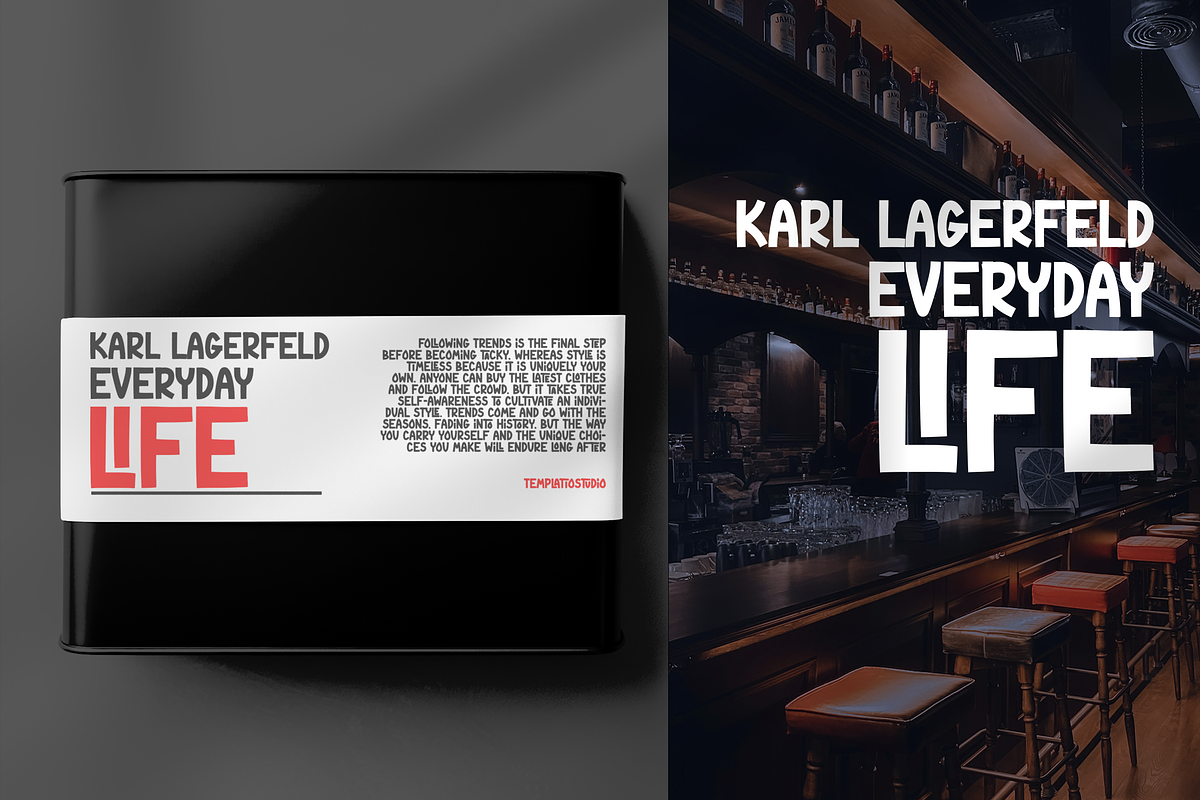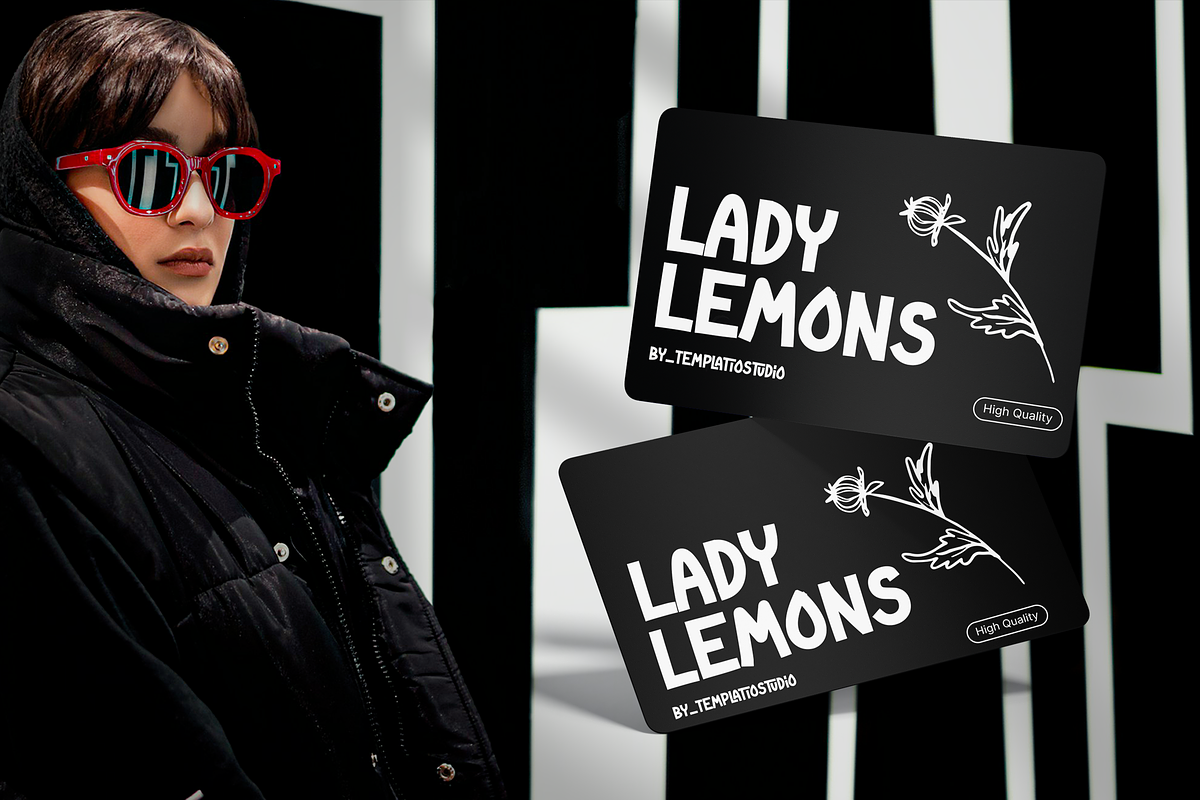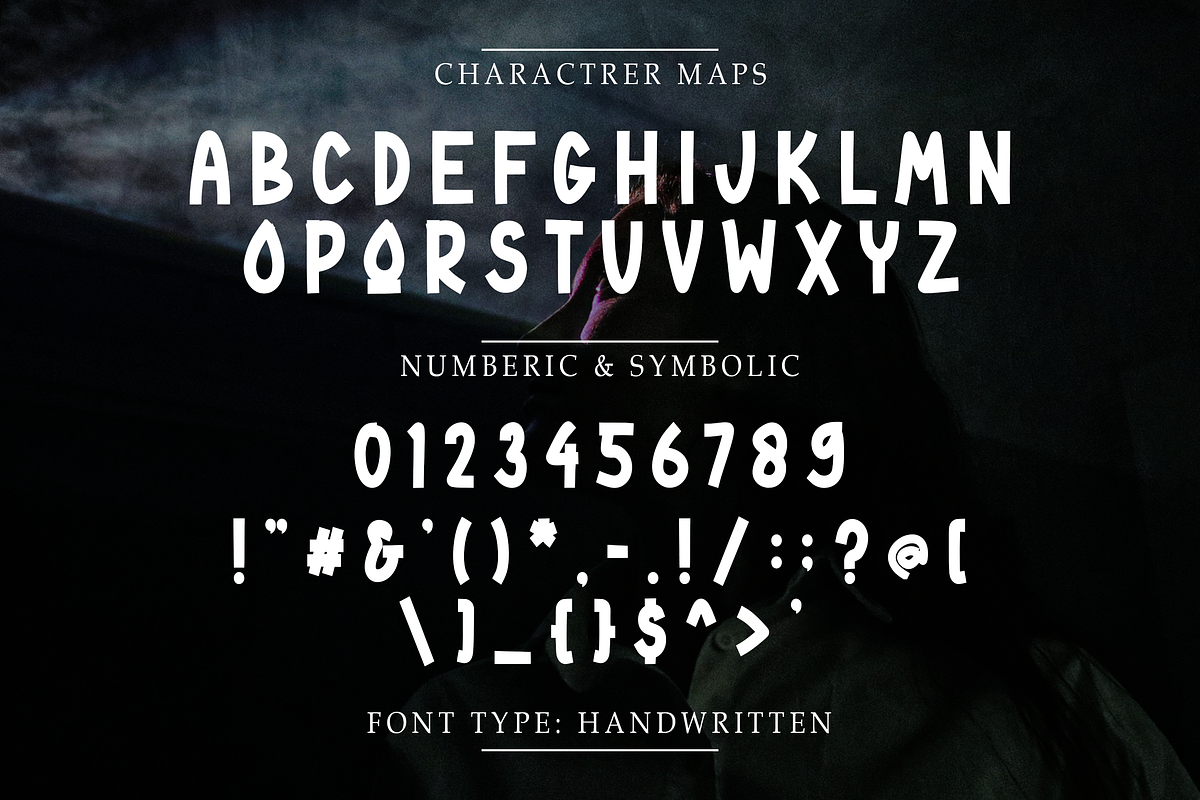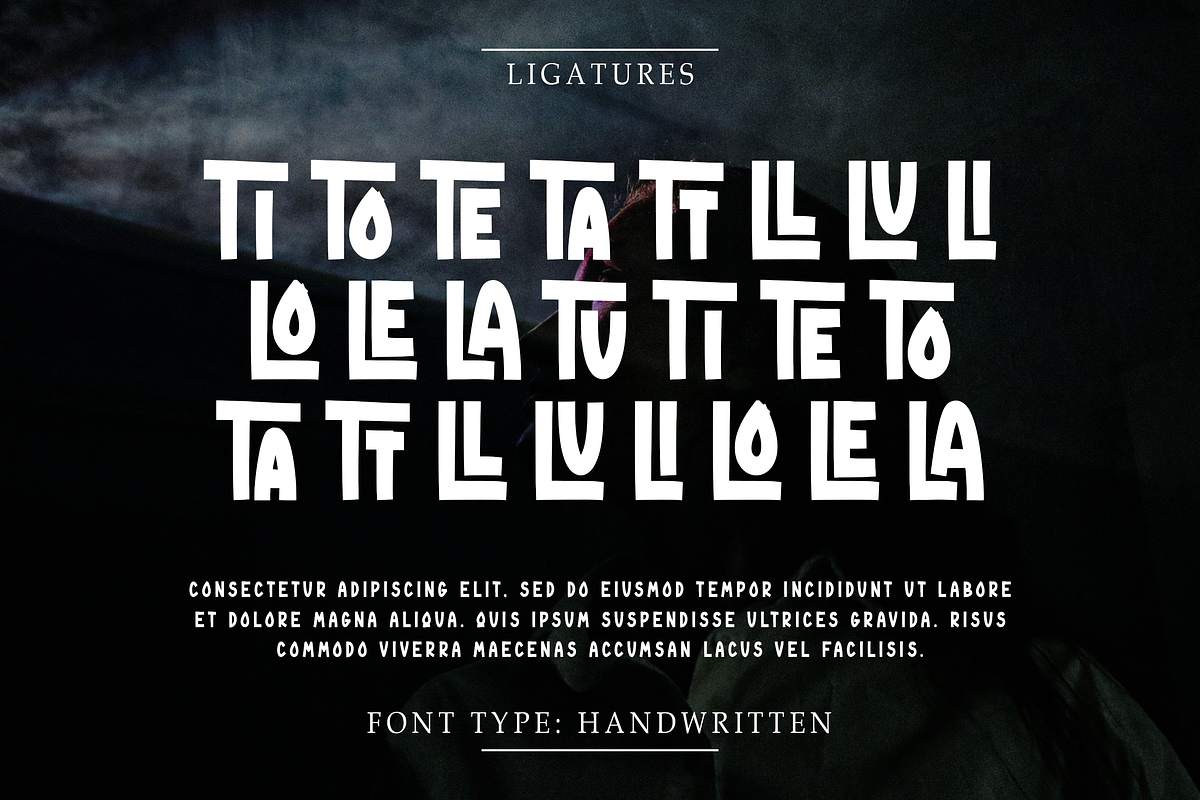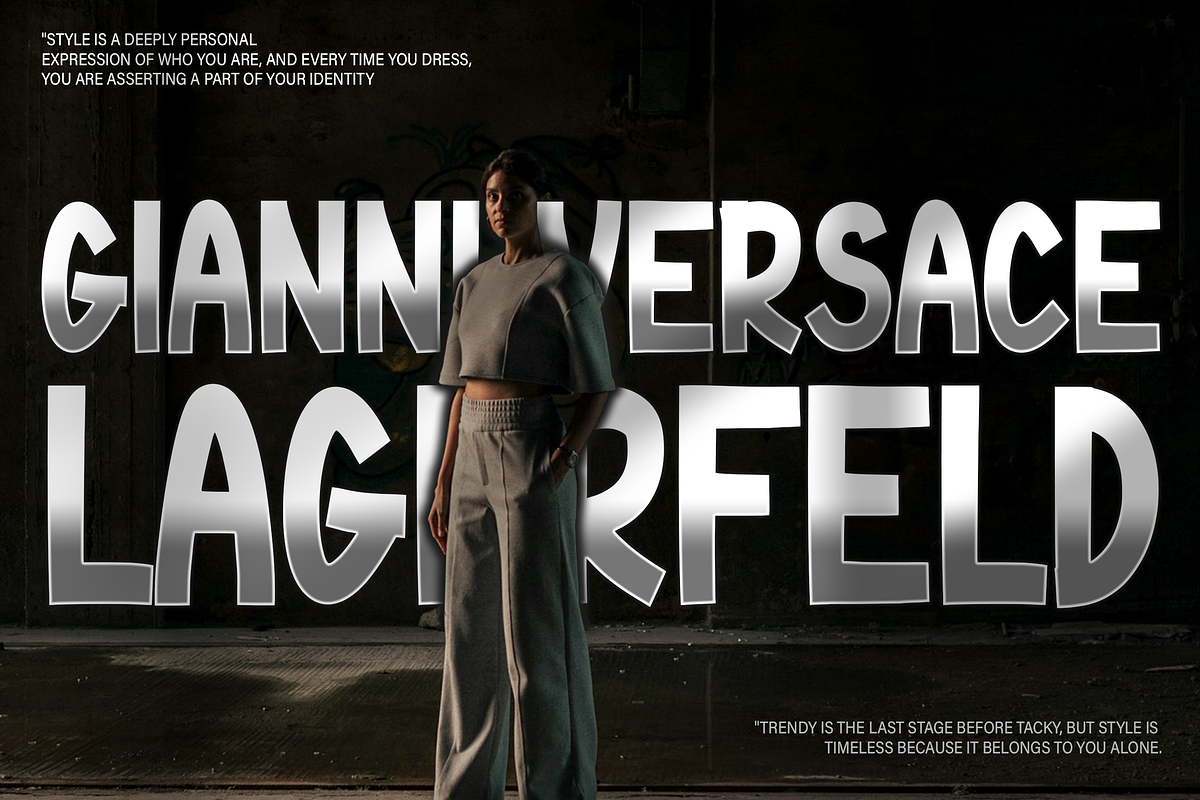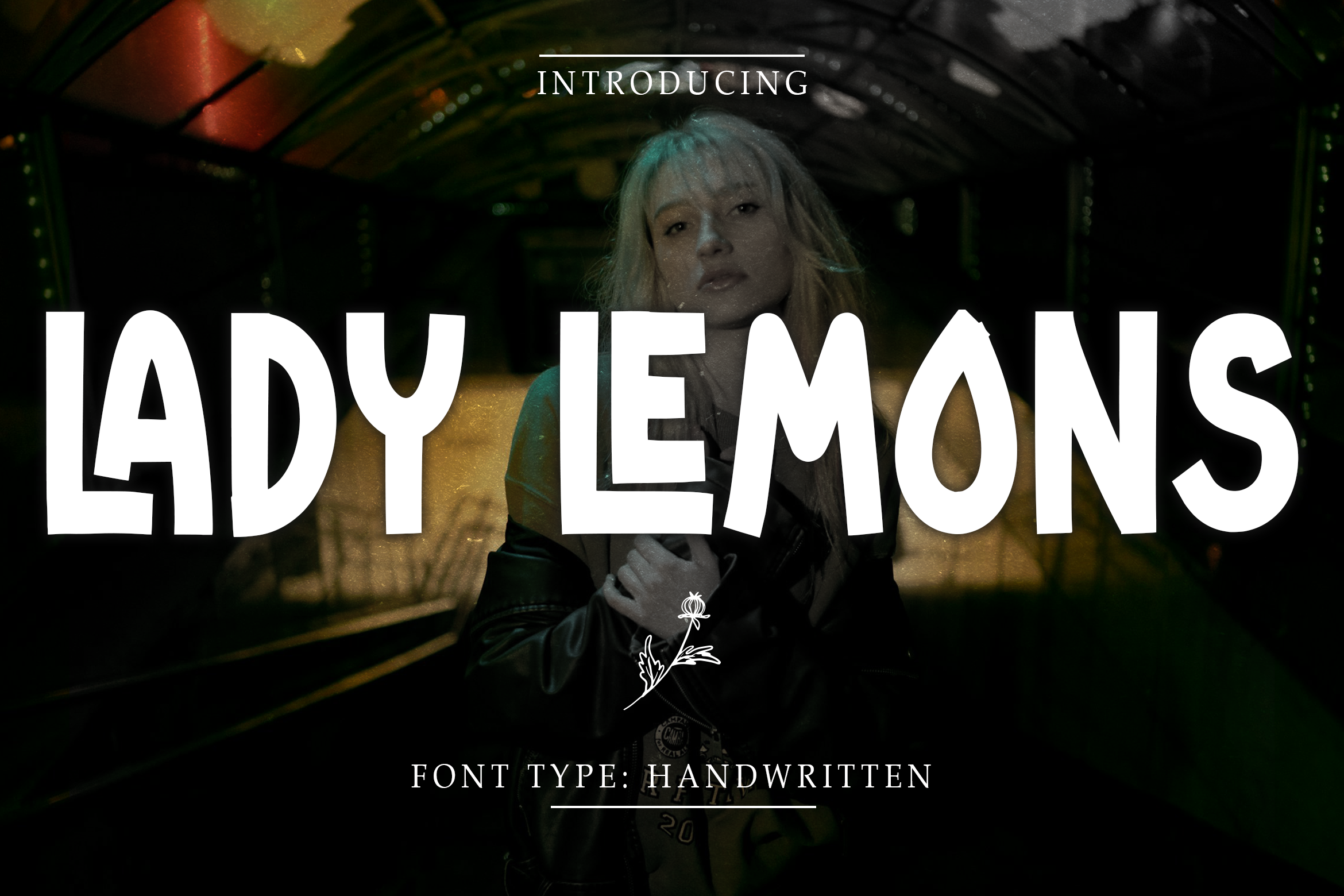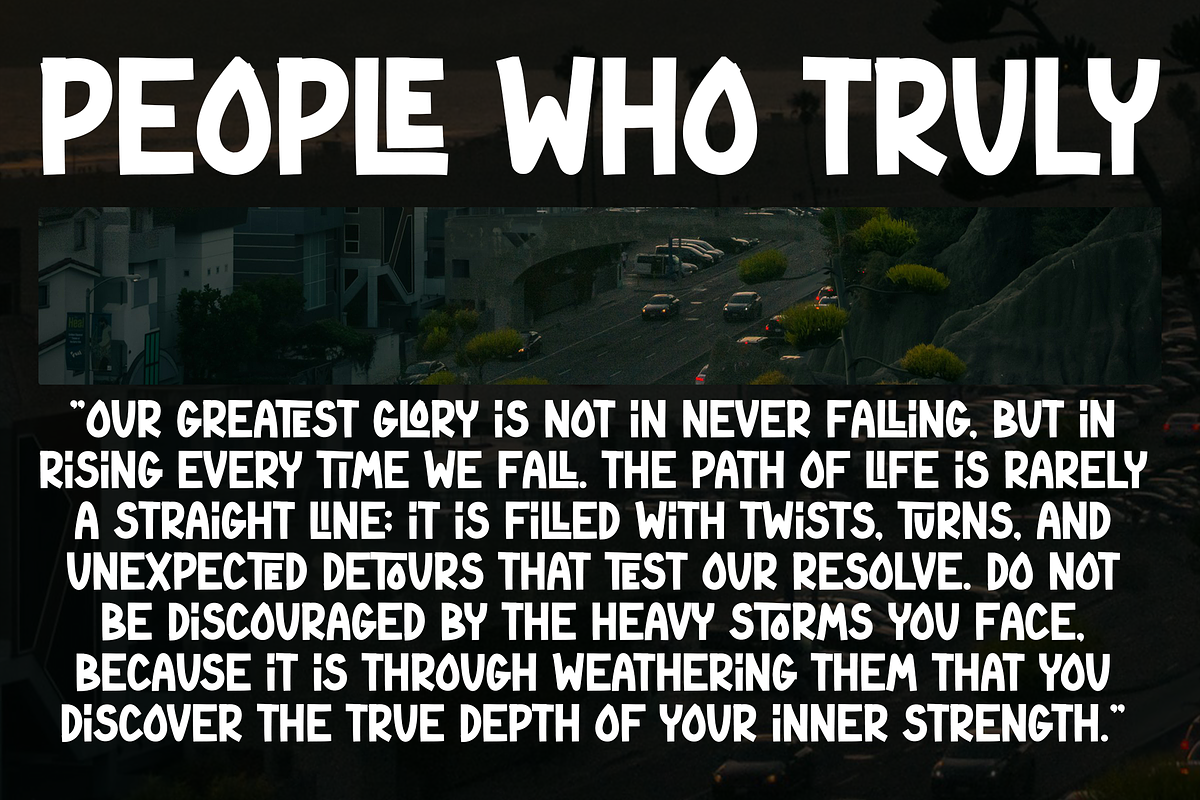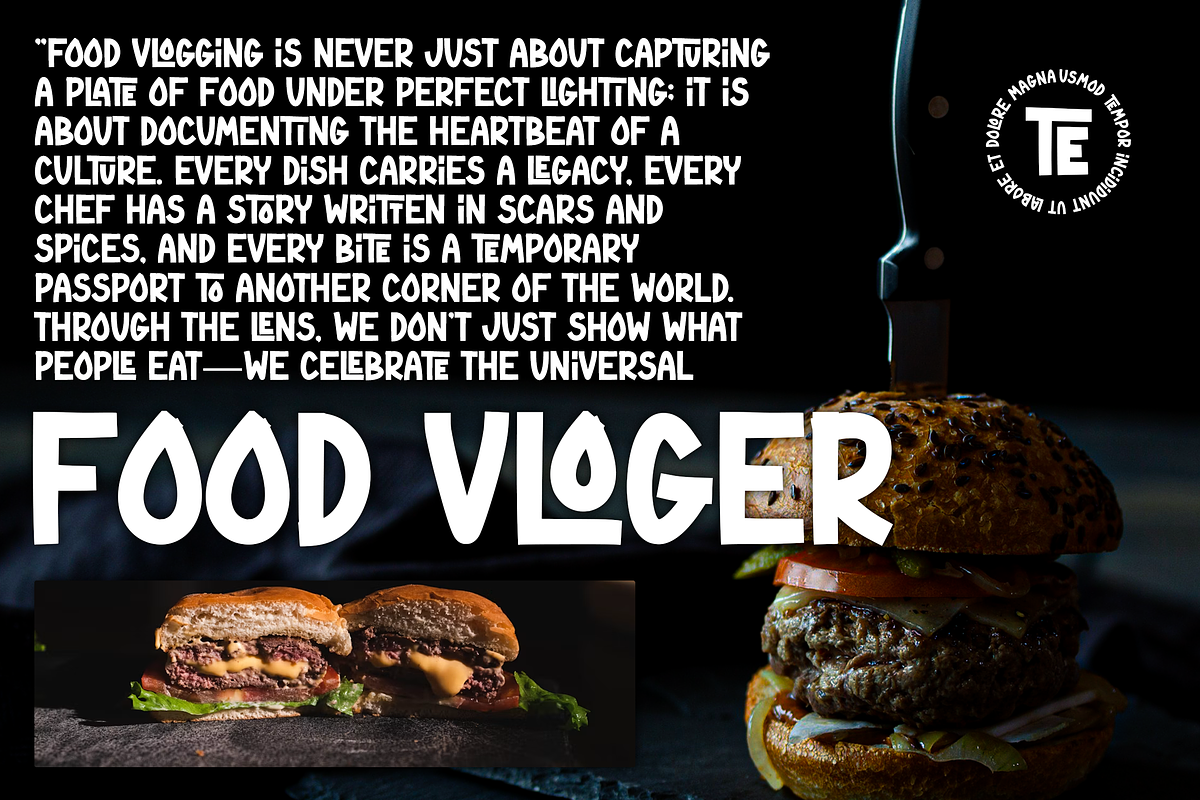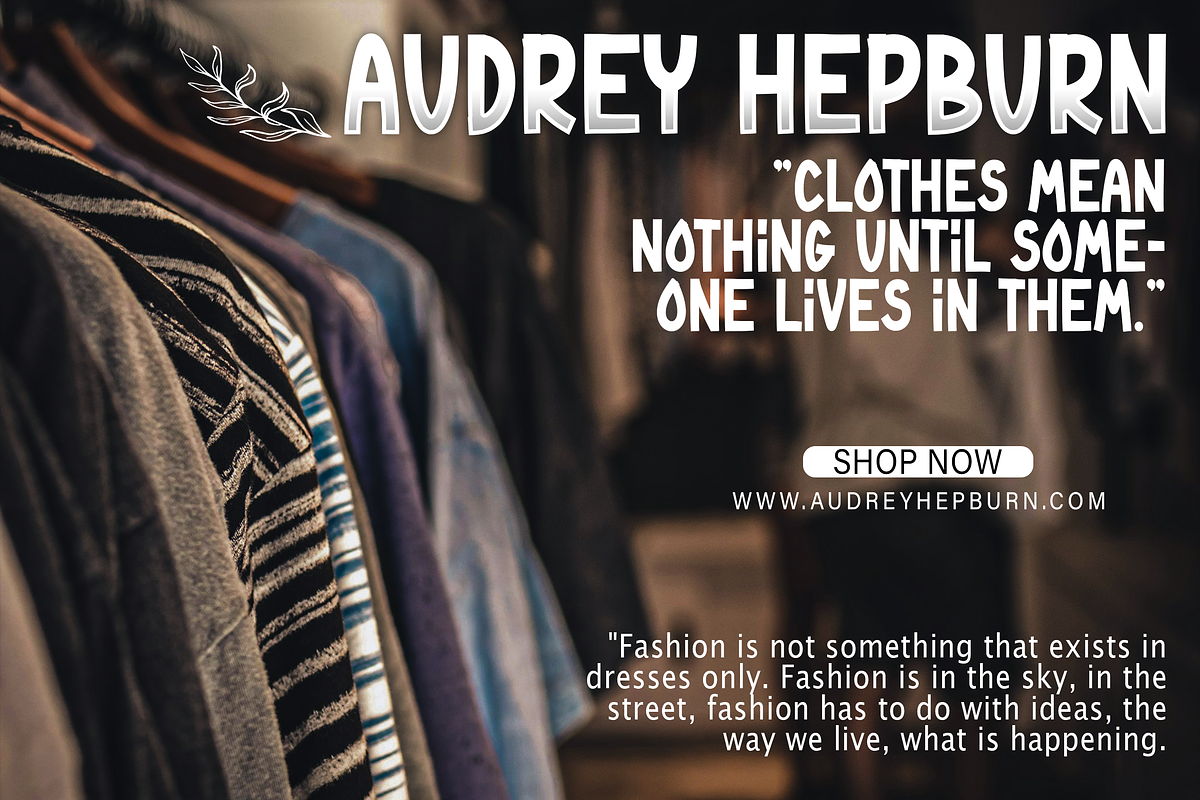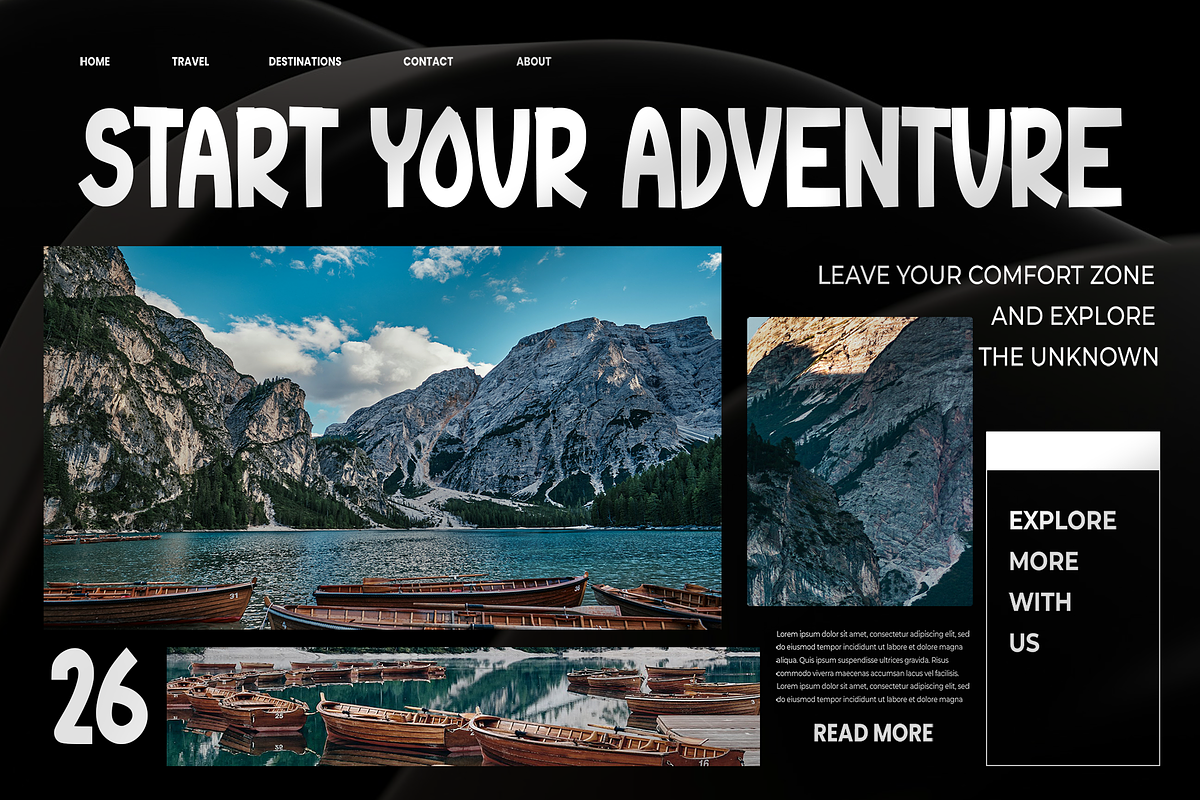
Lady Lemons Handwritten Script Font
Lady Lemons is a playful handwritten script font designed to bring a
fun, friendly, and natural personality to your creative projects.
Its casual handwritten character makes it suitable for branding, logos,
packaging, invitations, greeting cards, social media graphics, posters,
quotes, stickers, merchandise, and other creative designs.
Lady Lemons is designed as a display font, making it especially
effective for headlines, short phrases, logos, and eye-catching
typography.
FEATURES - Playful handwritten style - Casual script appearance -
Friendly and organic character - Display-oriented design - Uppercase
characters - Lowercase characters - Numerals - Punctuation and symbols -
PERFECT FOR - Logo & Branding - Packaging Design - Social Media -
Posters - Invitations - Greeting Cards - Stickers - Quotes -
Merchandise - T-Shirts - Labels - Stationery - Creative Headlines